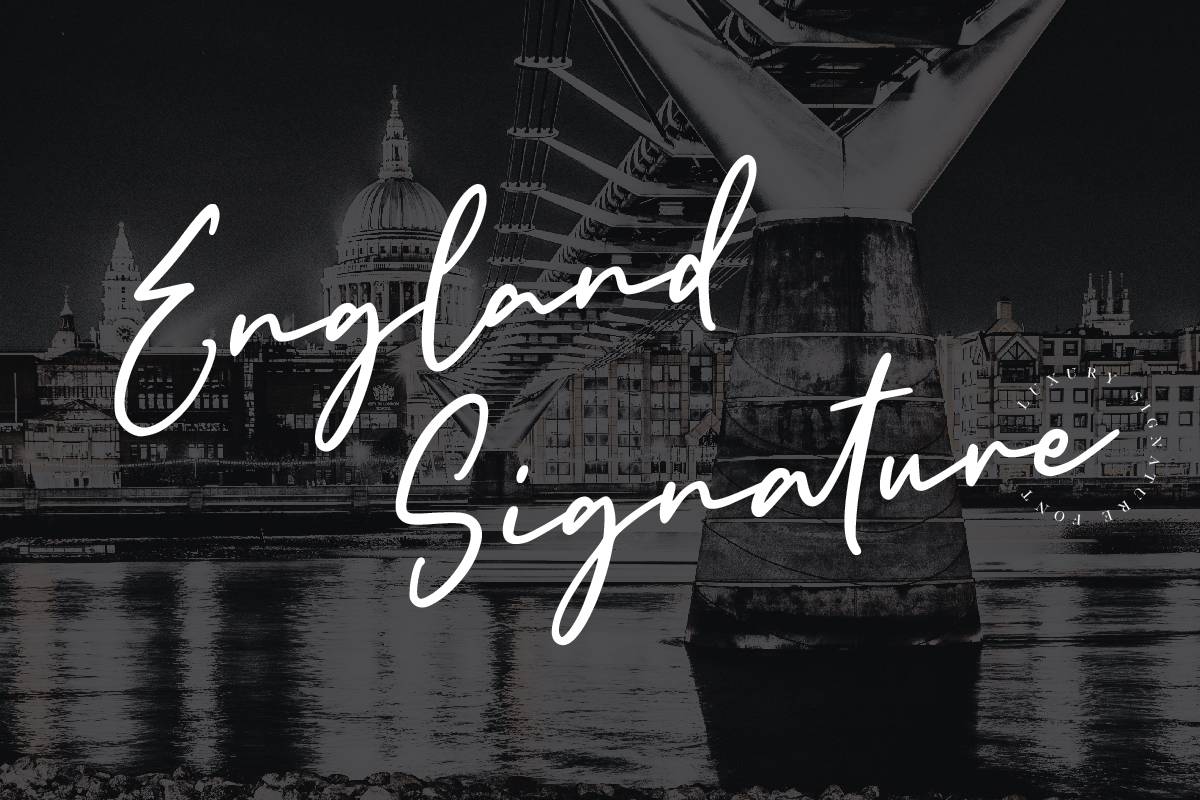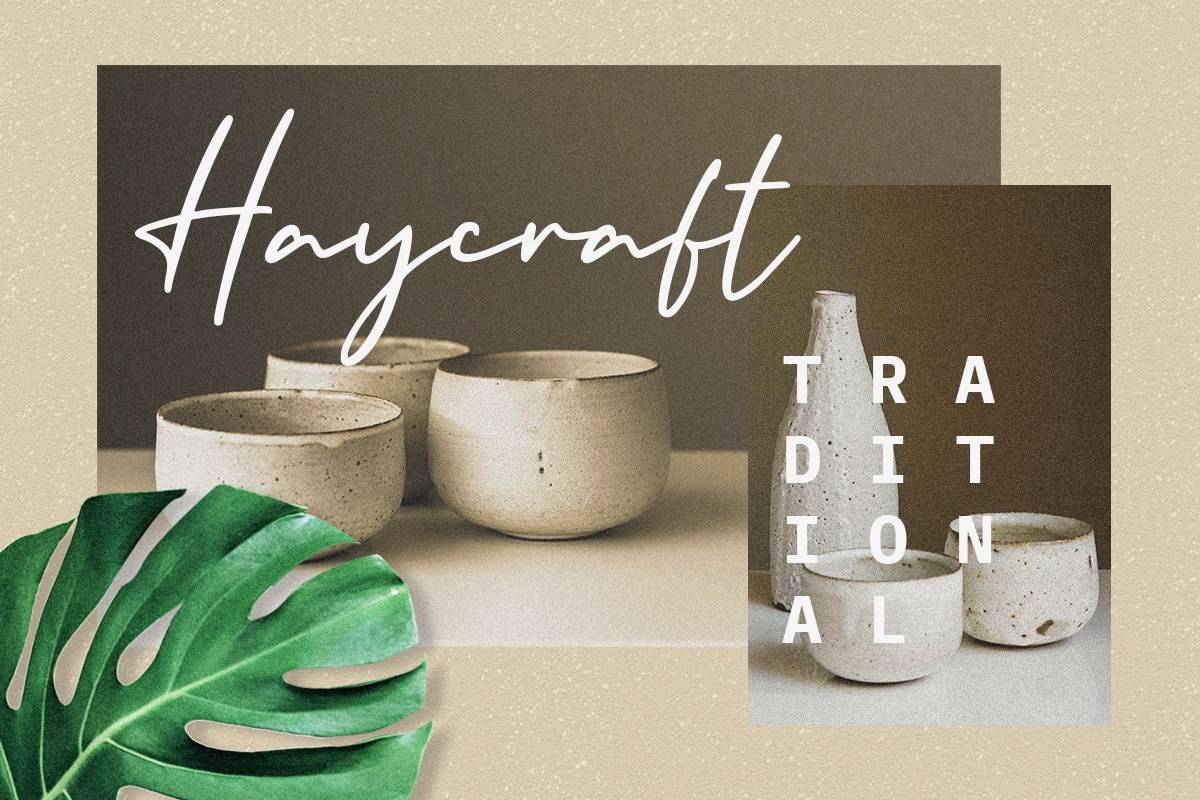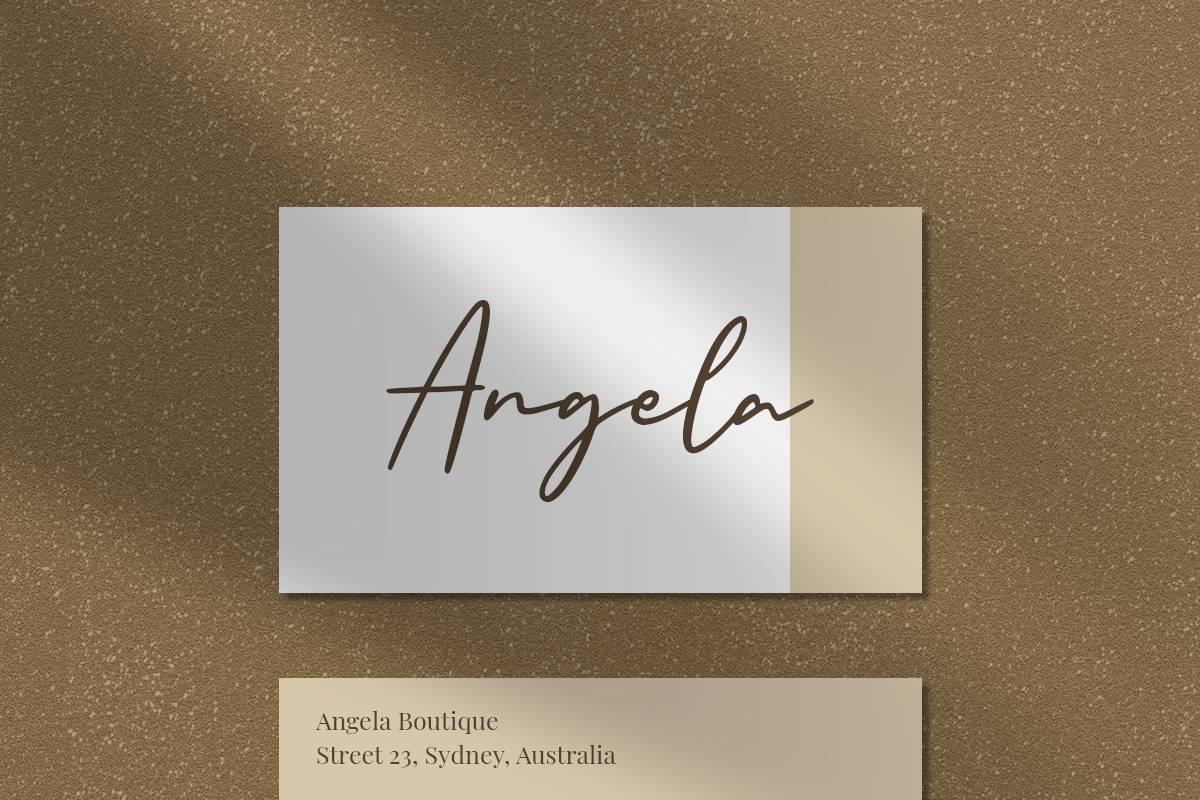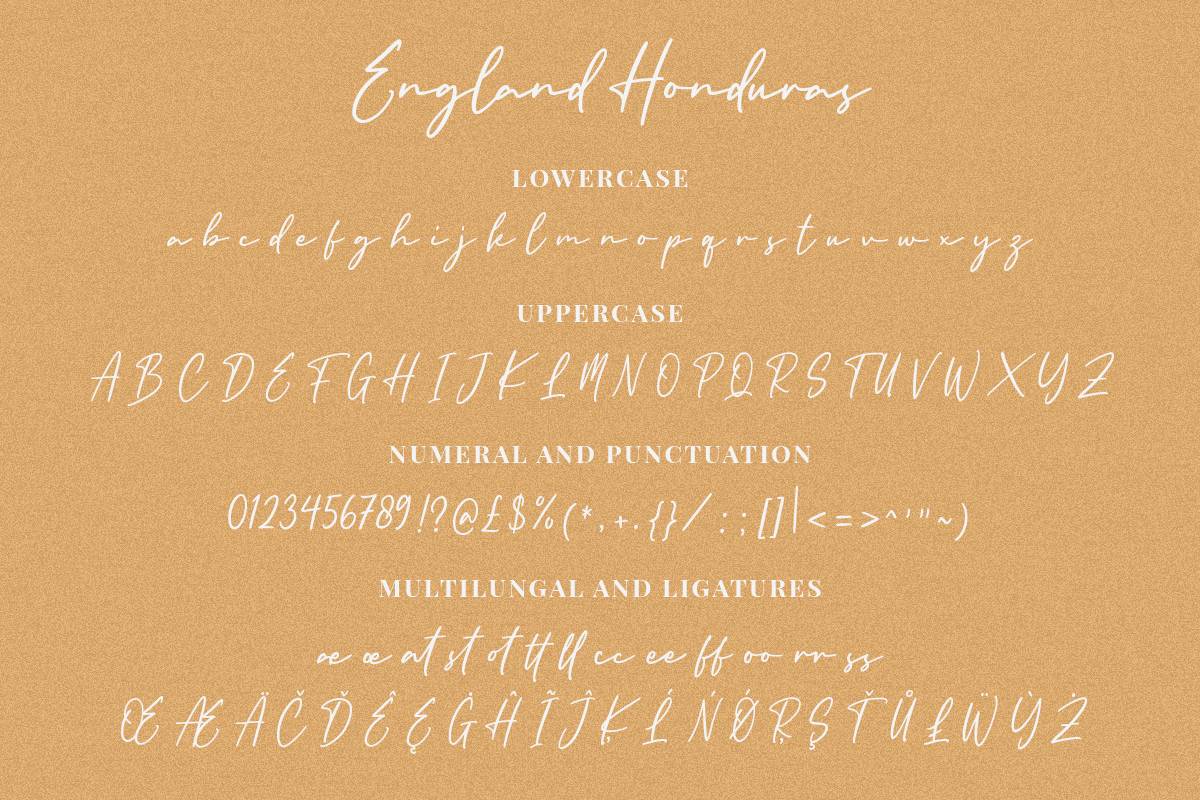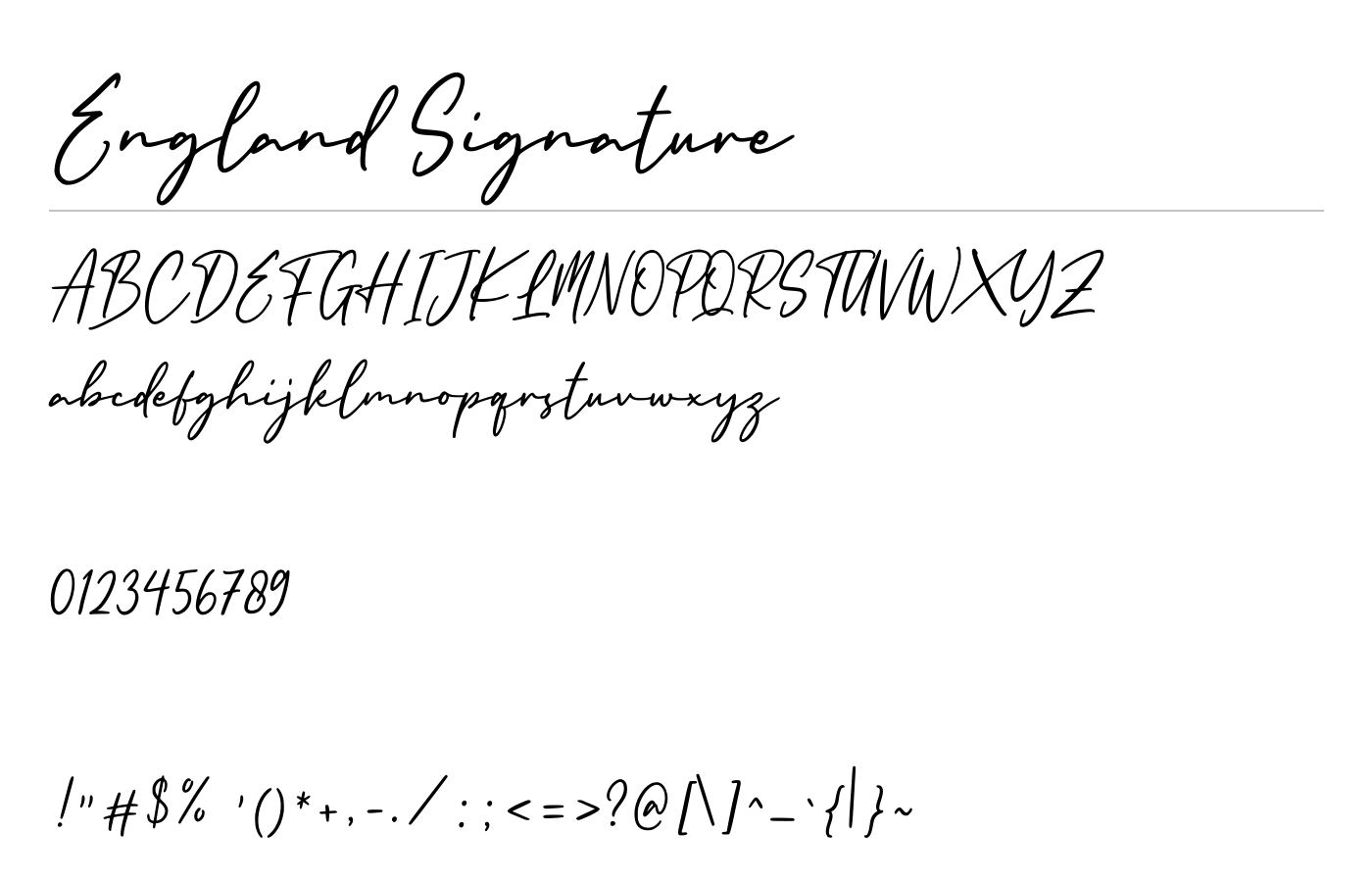
England Signature is an elegant, handwritten script font with a natural, flowing style that feels both personal and refined. Its slender, slightly condensed letterforms and smooth strokes make it perfect for branding, invitations, and stylish editorial work where a touch of sophistication and individuality is desired. This font works best in projects that want to convey authenticity and charm with a modern, graceful flair.
England Signature Font
About England Signature Font